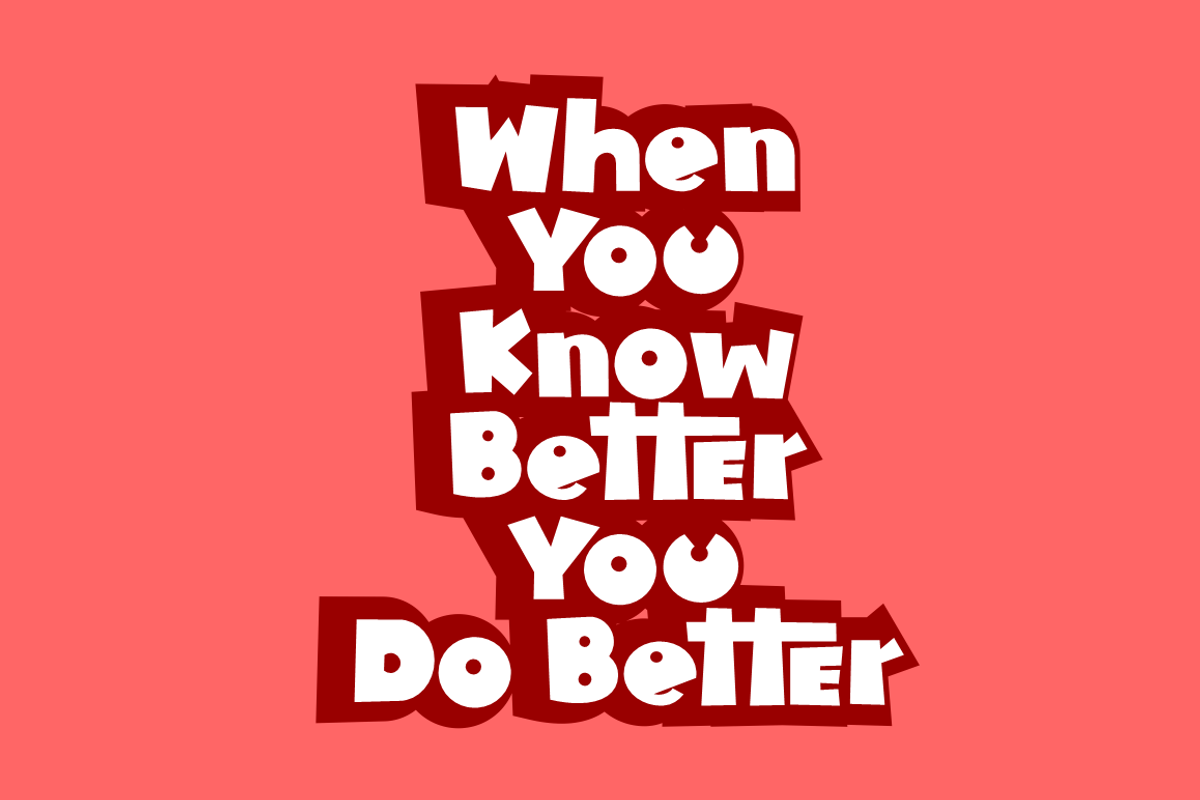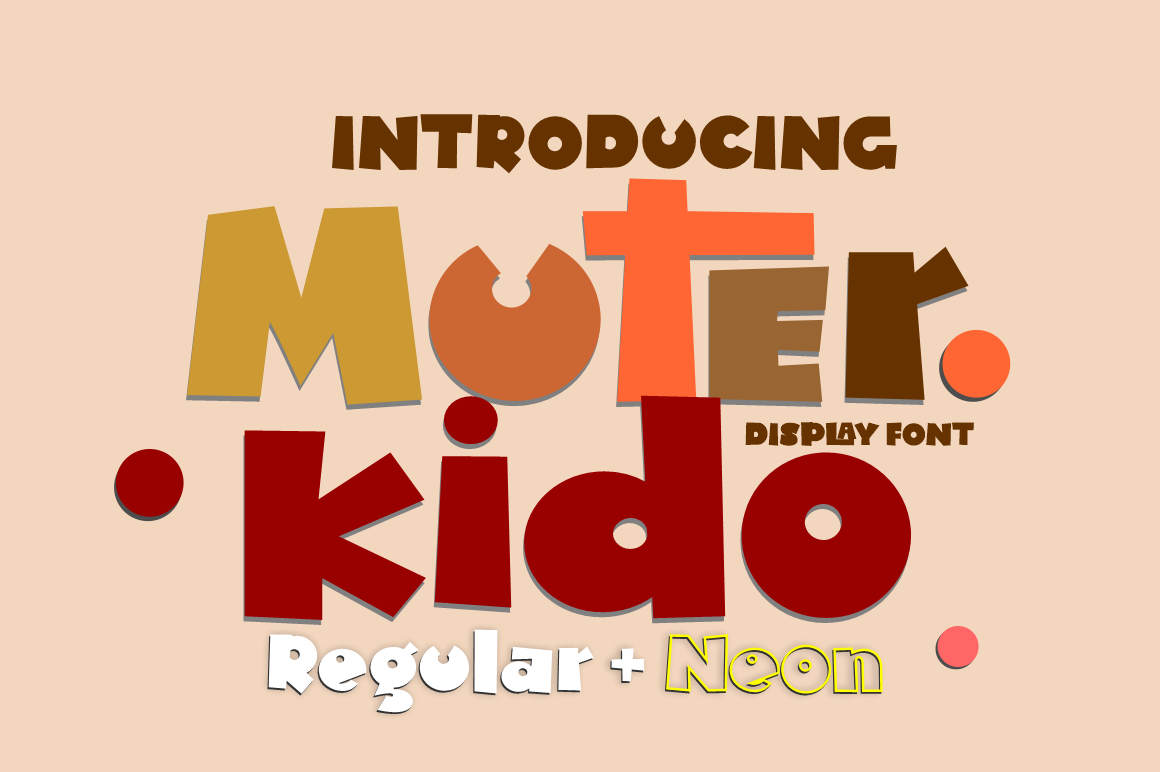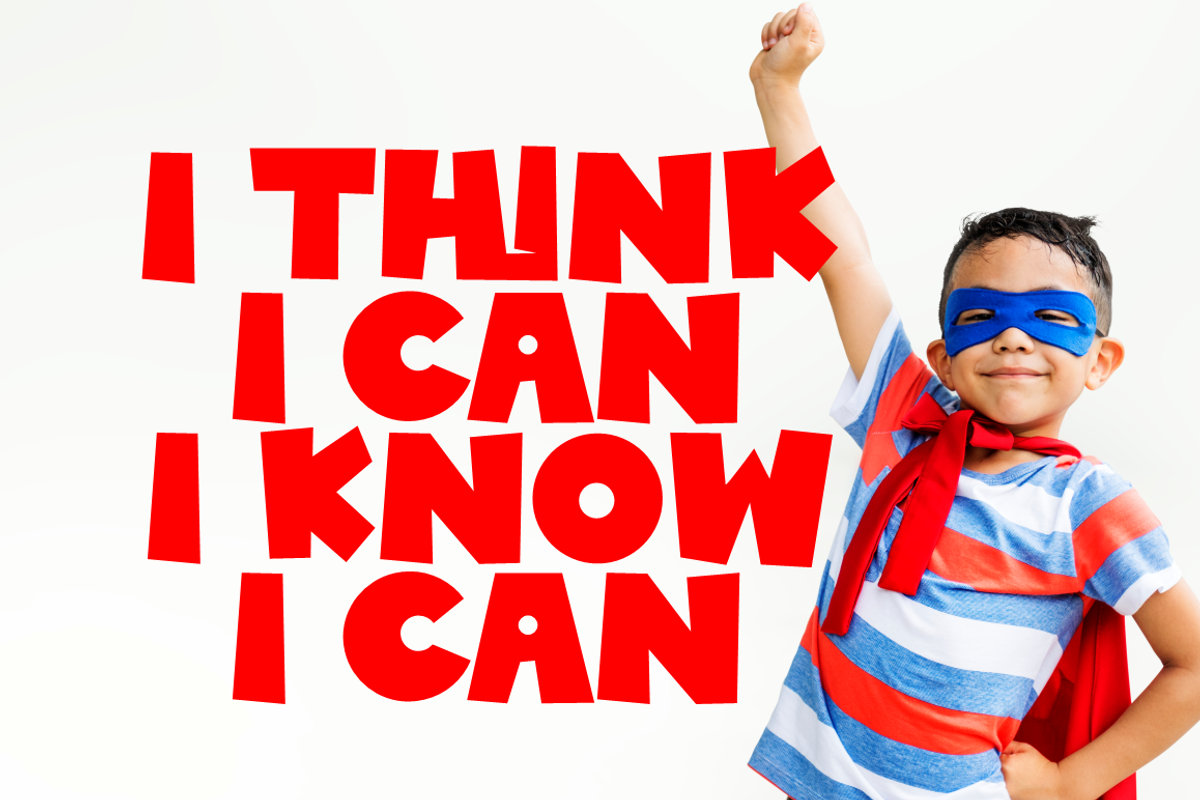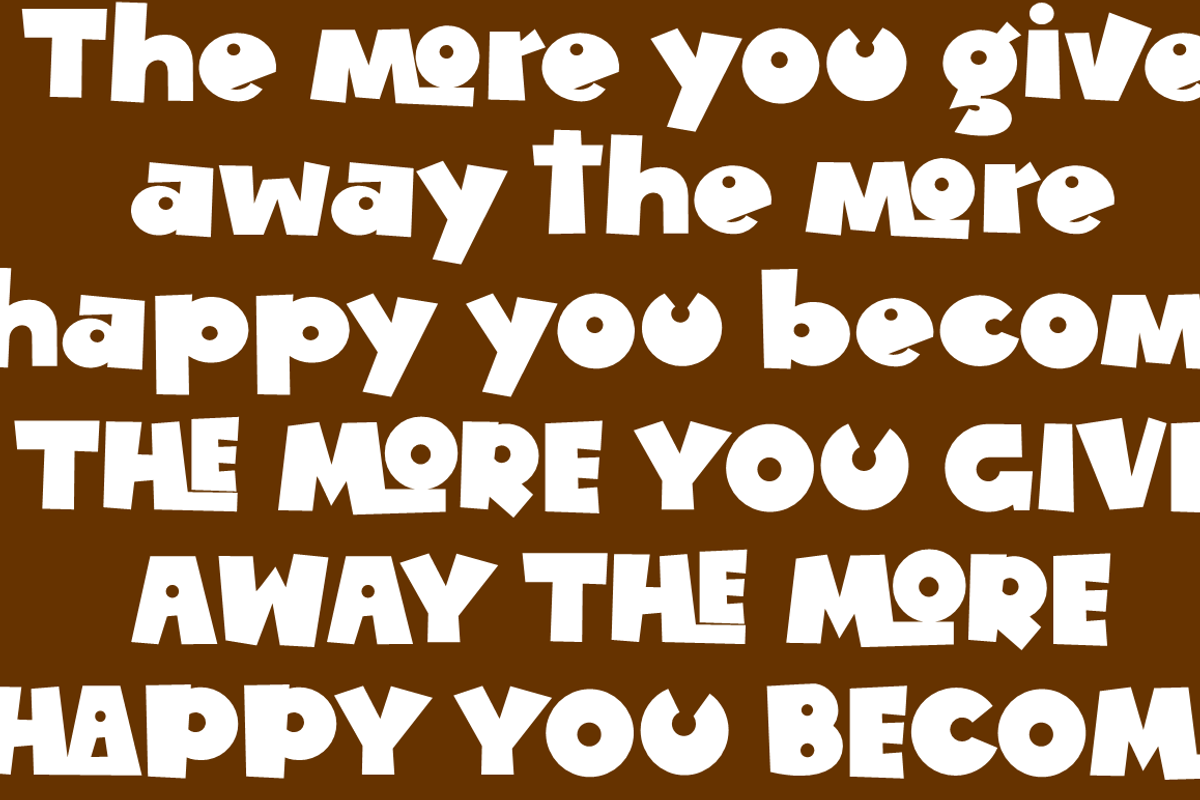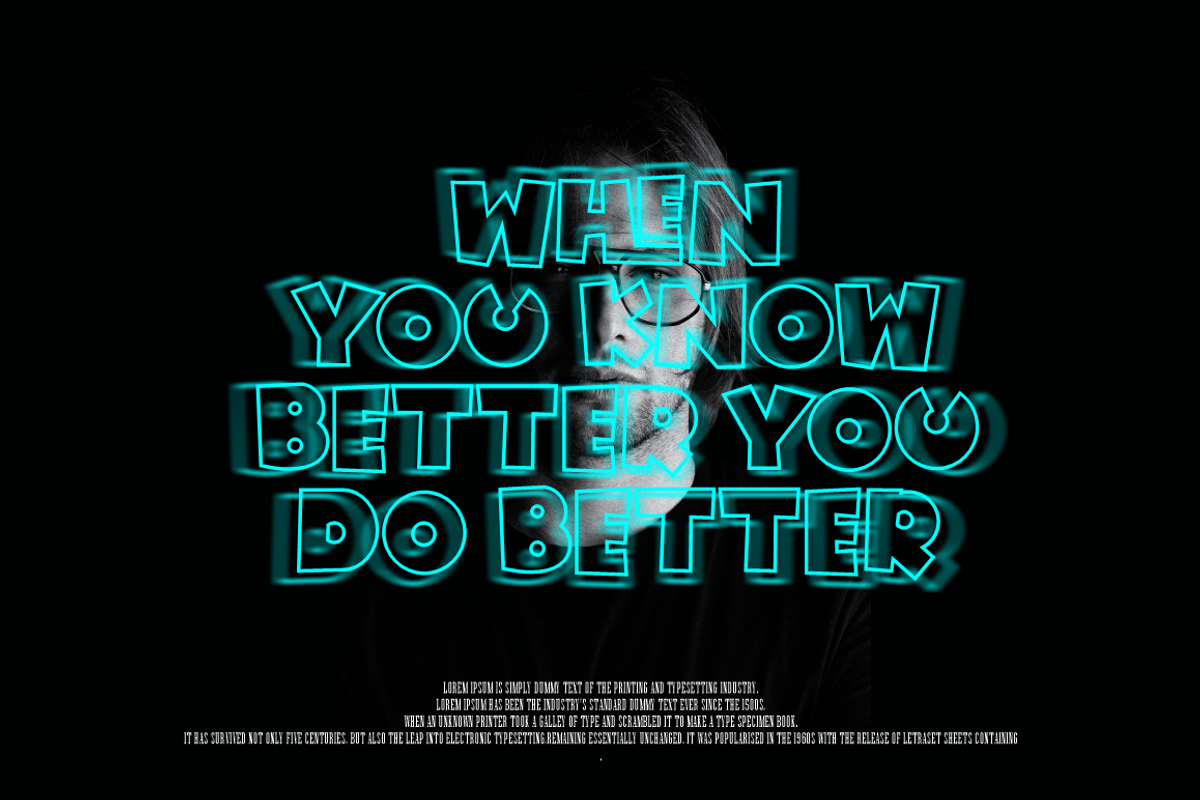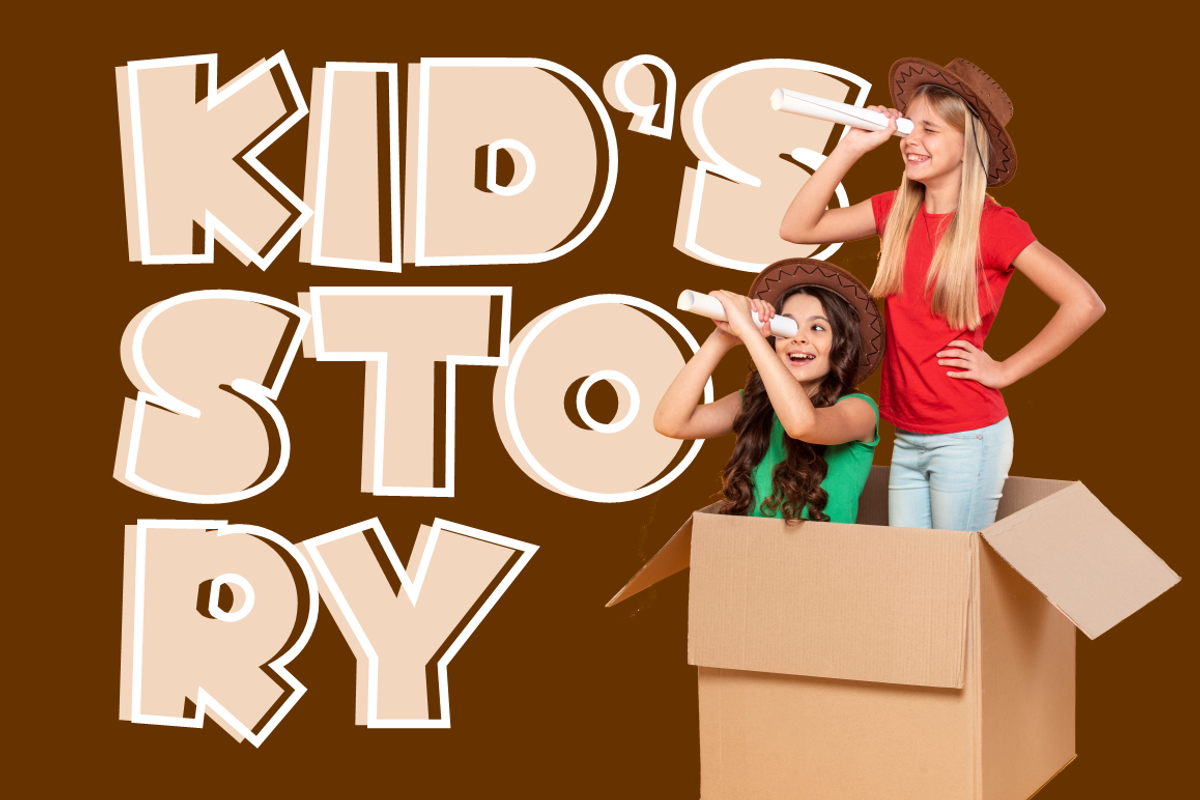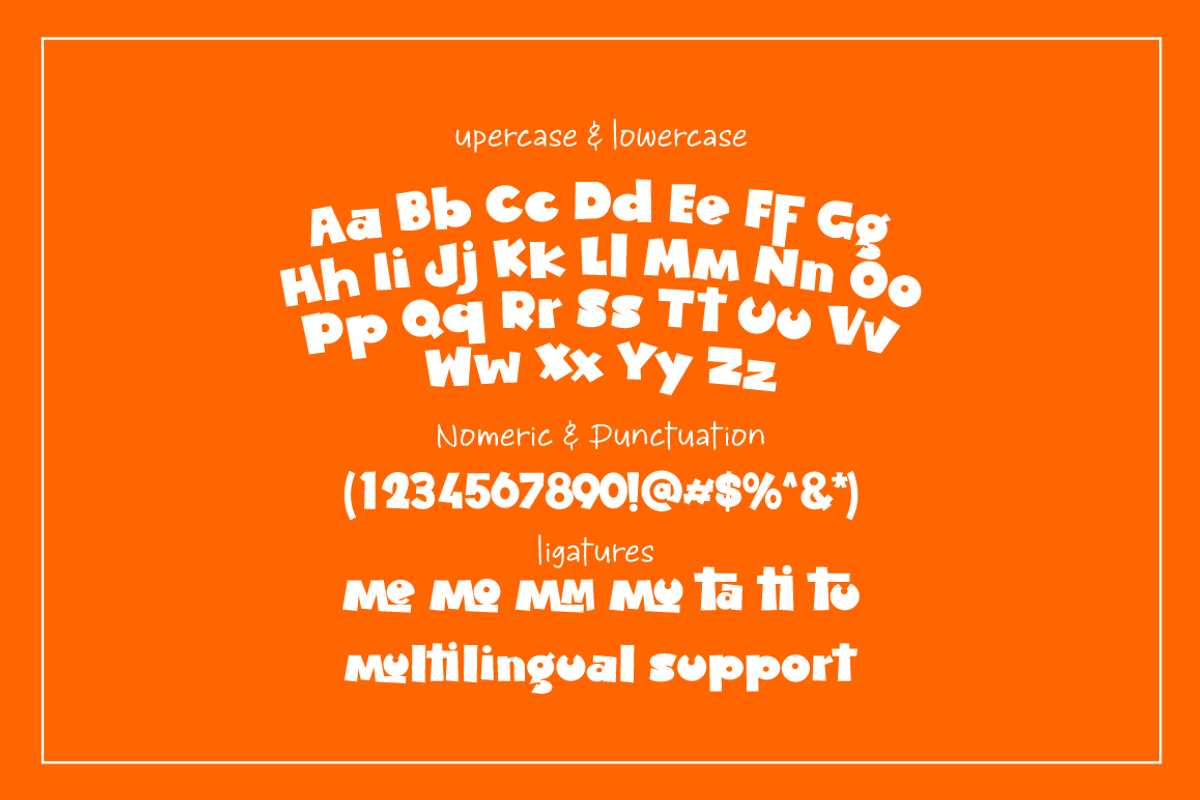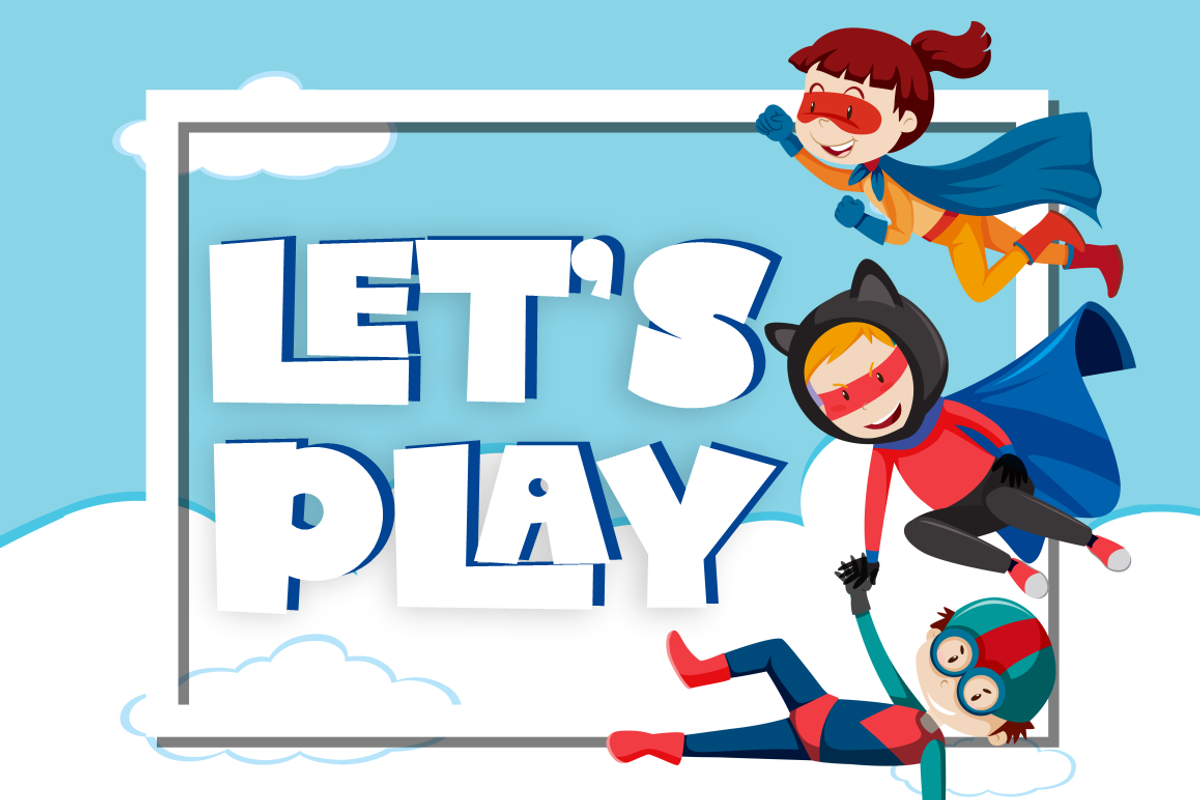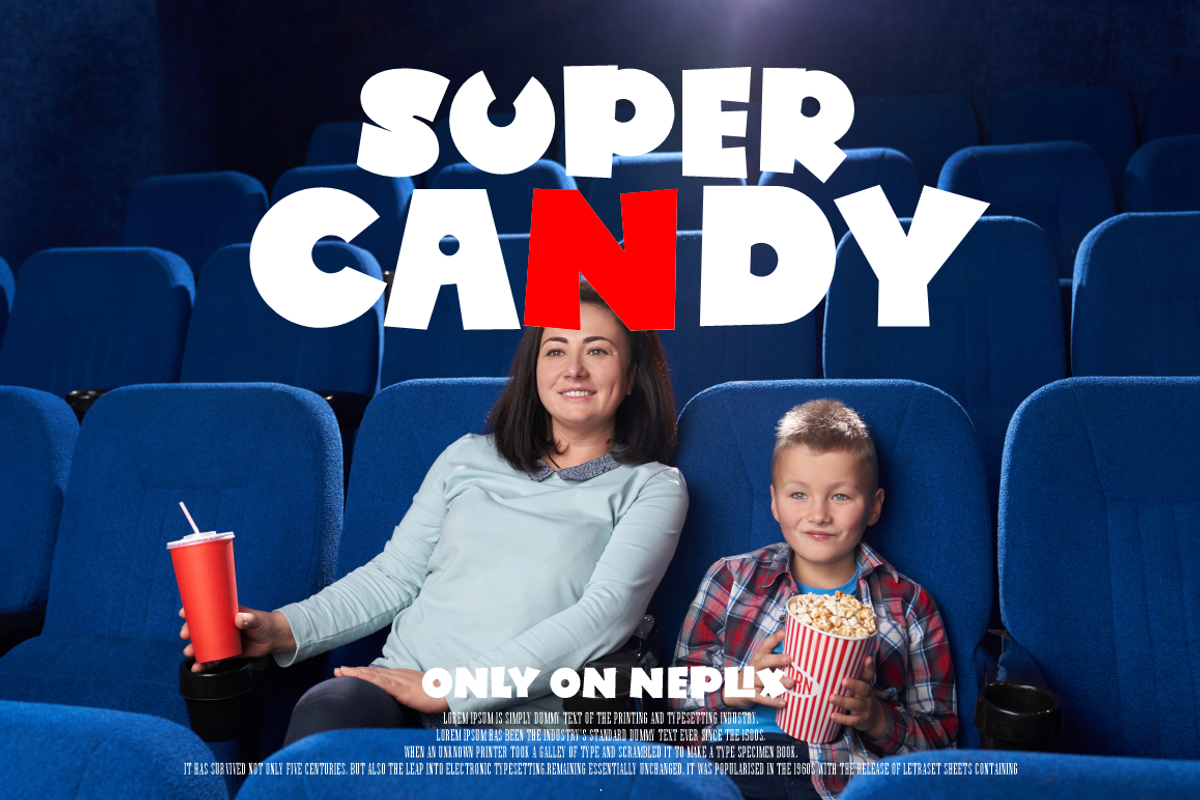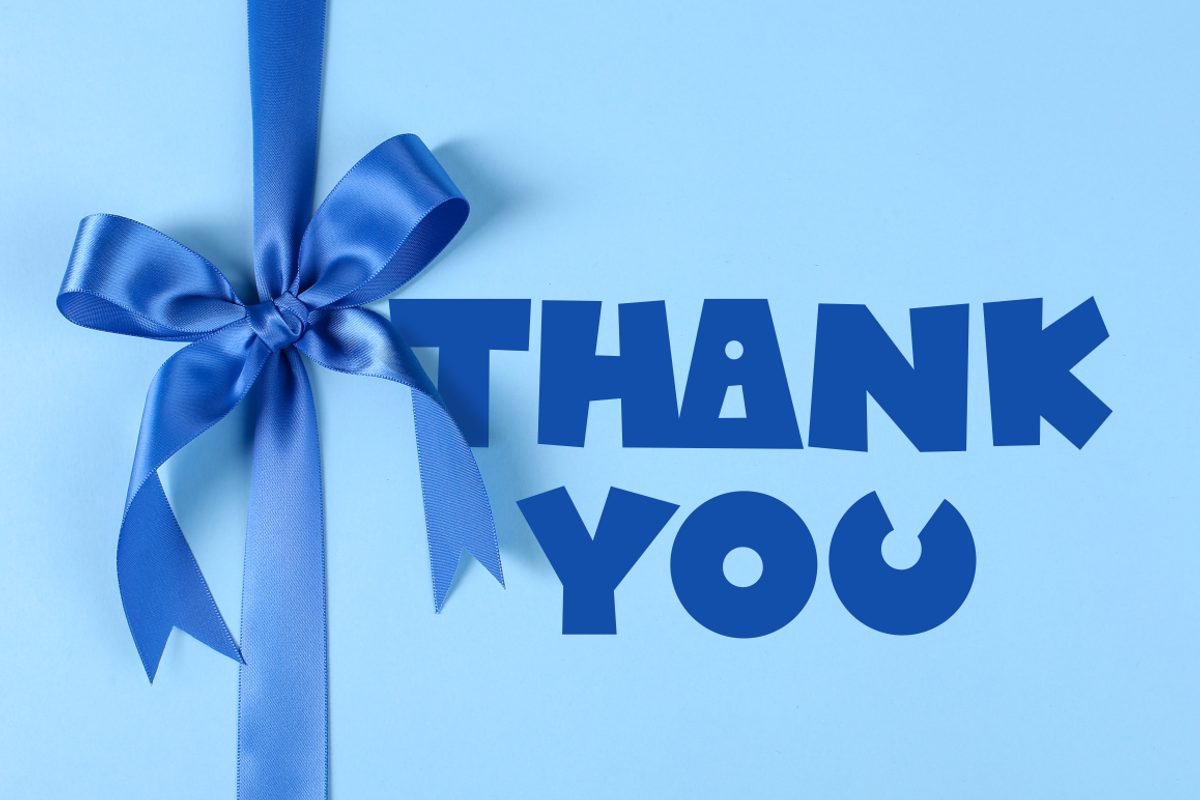
Muter Kido - Display Cute fonts
Muter Kido is a spectacular display font. Muter Kido is perfect for craft designs, birthday greeting cards, t-shirts, movie titles, quotes, logos. and Silhouette crafts. Add this chunky lettered font to your designs and notice how it makes them come alive! This font is PUA encoded which means you can access all of the glyphs and swashes with ease!